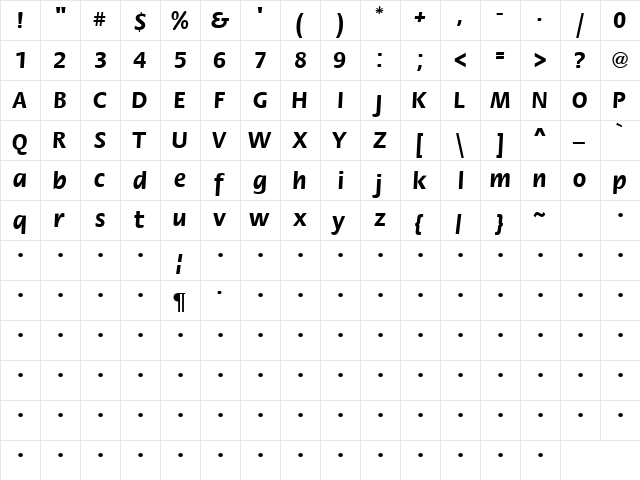
QTFloraline Bold
Design Context for QTFloraline Typeface
QTFloraline offers clean, dependable letterforms without strong stylistic allegiance, making it a practical choice for designers who need flexibility. The heavy weight commands attention and anchors typographic hierarchies.